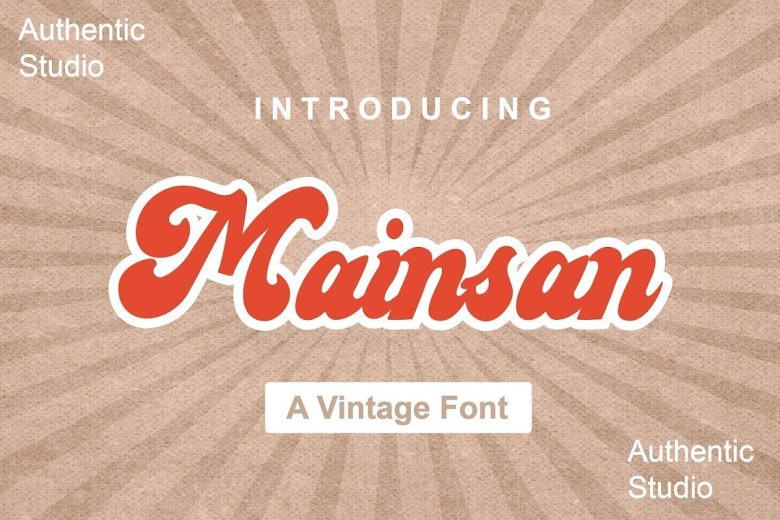
Mainsan Vintage Script Font
Introducing Mainsan Font, is a modern, beauty vintage script font. The nodes are reduces gently so you’ll get the clean and smooth in every character. This font will gives you a simple and beauty touch for many projects such as invitation, cards, gifts, branding, logo and other.
Also it has many alternate glyphs so you can choose beside the simple characters or give them a little swashes to give a decorative touch for your designs. This font is free for PERSONAL USE. Link to purchase full version and commercial license: HERE